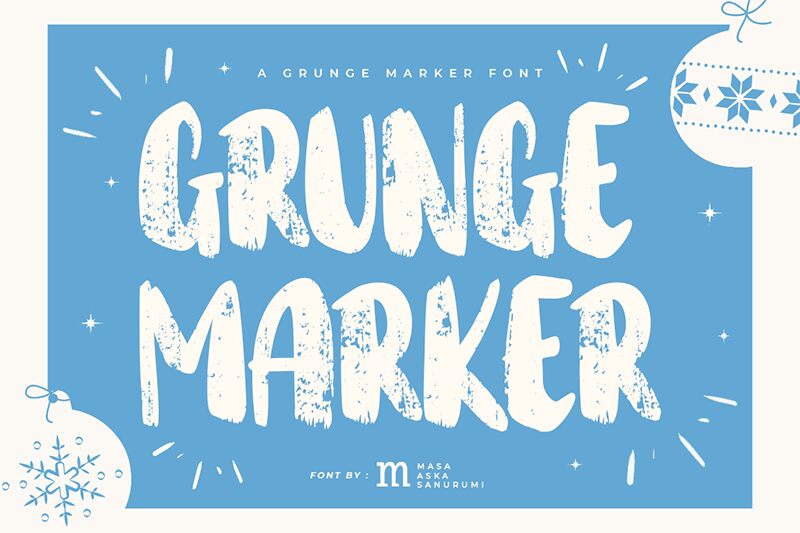
Grunge Marker
Grunge Marker embodies a rebellious spirit with its eroded texture and bold stance, crafted by Masa Aska Sanurumi. This display font, with its condensed form, appears as though it's been scrawled hastily with a thick marker, lending it an urgent and raw feel. The distressed edges suggest a handcrafted authenticity that resonates with underground cultures and street art.
Ideal for projects that demand attention and an edge, Grunge Marker excels on gig posters, edgy branding materials, and any design space that benefits from an unapologetic, gritty aesthetic. Its bold character ensures legibility at larger sizes while maintaining a striking impact.